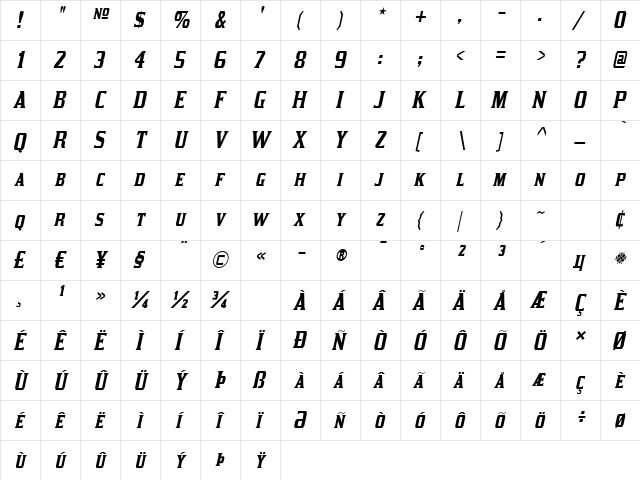
Kirsty Italic
Design Context for Kirsty Typeface
Kirsty is a composed and adaptable typeface that performs quietly and consistently across a wide range of design contexts. The slanted form adds forward momentum and visual energy.
Pro Tip: Try Kirsty for annotation and caption copy alongside an upright companion — the contrast in angle creates a dynamic but ordered typographic system.